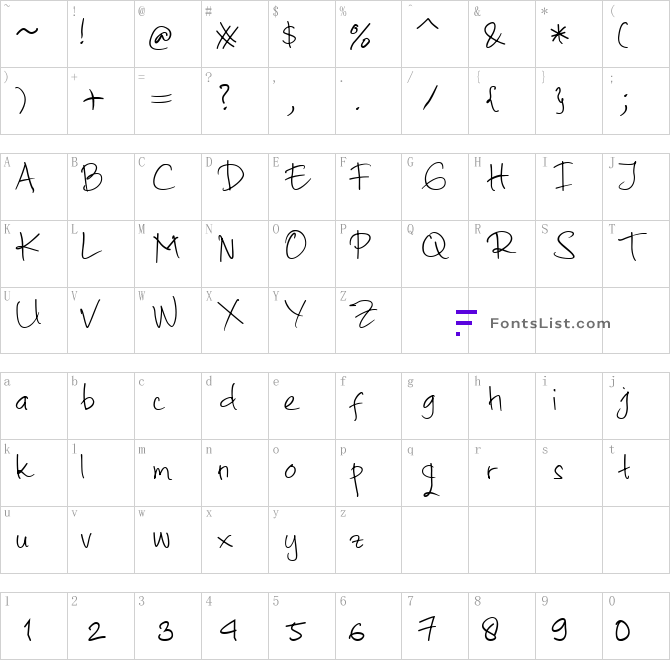
- Font Name:Ato
Ato-Light.ttf is a very beautiful artistic font, Ato-Light.ttf is widely used in the design and printing of various books and pictures,Ato-Light.ttf has a strong visual impact,Ato-Light.ttf is a commonly used font in newspapers, magazines and books, and is used in posters, e-commerce Poster design, store design, logo design, font design and other fields.Ato-Light.